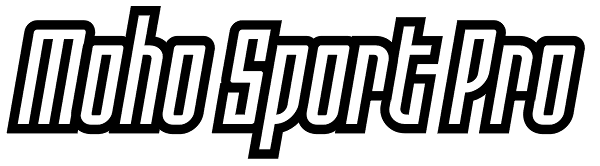
Moho Sport Pro
As an ingredient of the large family of display typefaces "Moho", John Moore Type Foundry presents another variation of fonts consisting of two components: a main font Moho Sport based on a thick outline overlapping and Moho Sport Top, a...